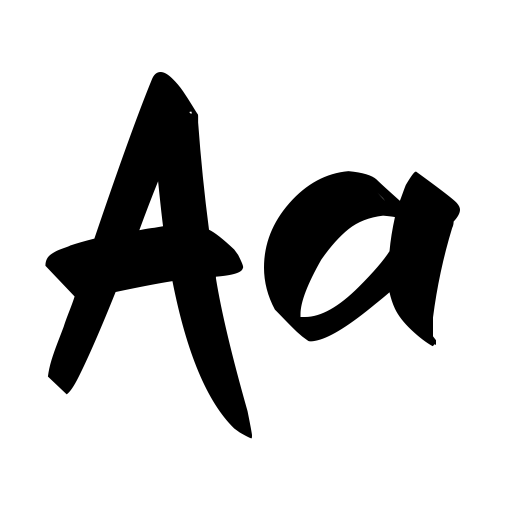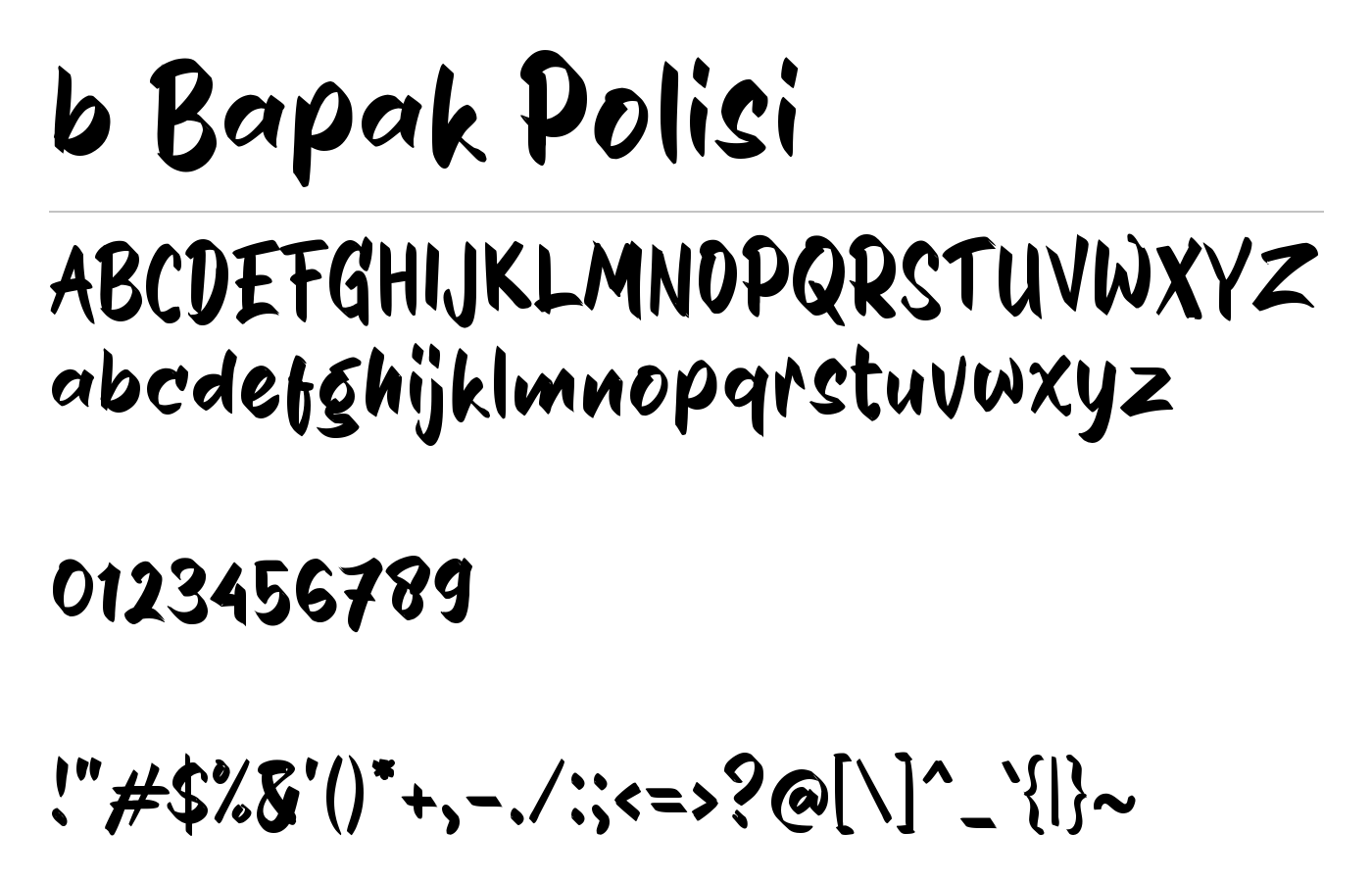
Bapak Polisi is a bold, expressive handwritten font with a playful yet slightly rough style that adds personality and energy to any design. Its casual letterforms and dynamic strokes make it ideal for creative projects, informal branding, posters, and social media graphics where a friendly, approachable vibe is desired. This font works well for designs that need a unique, hand-crafted feel while maintaining good readability.
b Bapak Polisi Font
About b Bapak Polisi Font